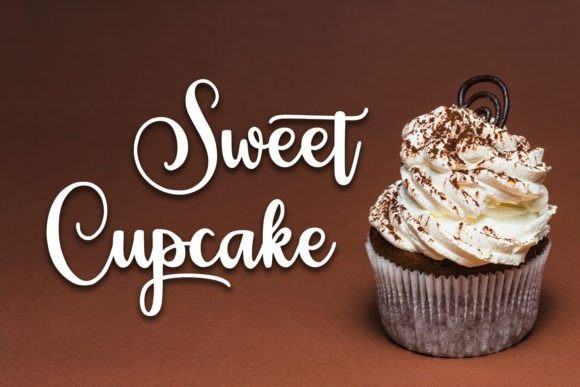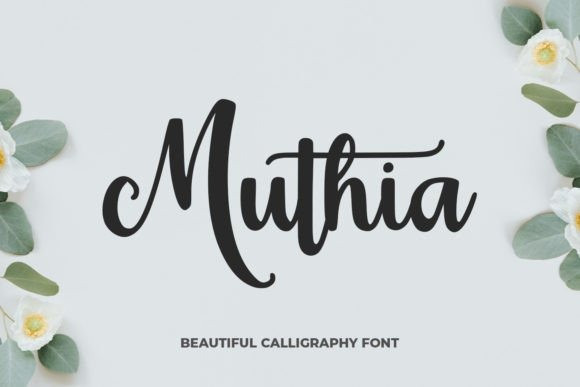
Muthia Script Font
Muthia Script Font is a cute and adorable handwritten script font. Dainty and joyful, this font will be ideal for writing wedding invitations, cards, or any other design that may need a romantic, personalized touch!